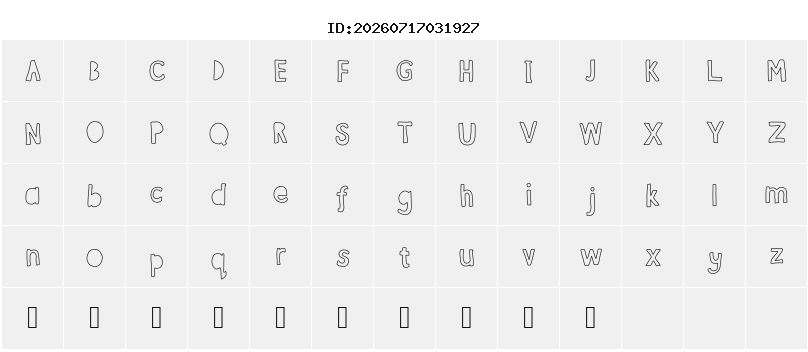
bubble mim Preview
• Font Name: bubble mim
• Full Font Name: bubble mim
About bubble mim.ttf
bubble mim.ttf is a modern, elegant sans-serif font designed for ultimate readability and visual harmony. Perfect for branding, headlines, web design, and print materials.